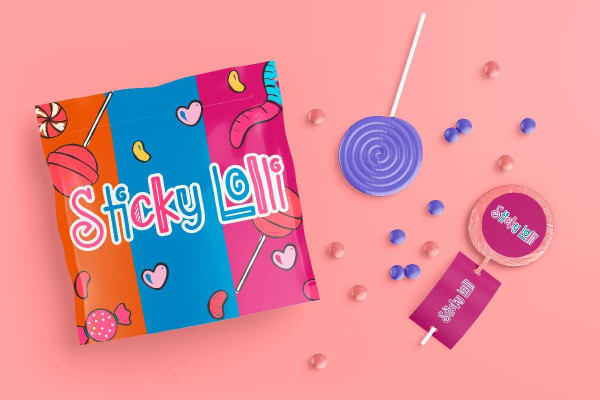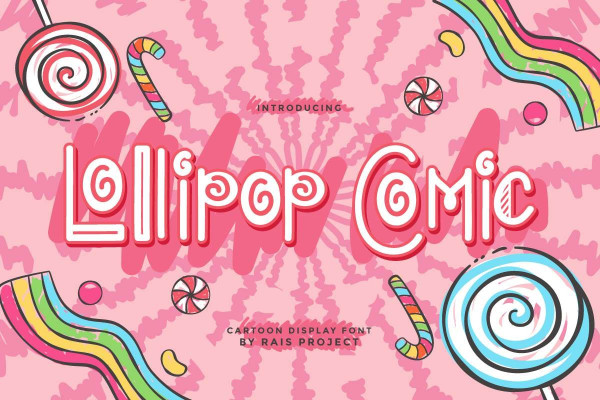
Lollipop Comic Font
Lollipop Comic Font is a fun display font with candy lollipop shape. The font will be great for holiday projects, FnB brands, homeware, children, school etc. You can see the demo font below, can input any word you want so you can see what it looks like.
Lollipop Comic Font includes of uppercase and lowercase letters, numerals, punctuation and ligatures. Great for your cheery projects. For toy cards, product packaging and more! Basic characters for numbers and punctuation in fonts. You can find candy characters in the use of LOWERCASE letters by combining them with uppercase characters to combine a suitable appearance.